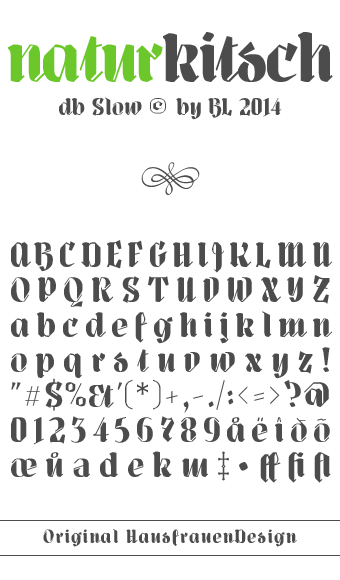
db Slow
by beate
Love it. Very creative use of ink traps. A bit of a speciality of yours. 10/10
Admit it. You have the most fffking awesome fontstructions so far.
Amazing work!
Another stunning work. :)
I'm with the guys! Excellent work!
(Speechless)
Beautiful! - or should that read beateful!
Awesome, as always. Your recent sample reveals the V to be very D-like – humorously suggesting your cheeky request be read as “PLEASE DOTE”. ;)
Interesting concept, it's very satisfying.
Love it. Just plain pretty.
Unusual and very effective inktraps, absolutely beautiful!
This is AMAZING. I love the flow between the letters!
who won scriptcomp? (no dis to the winner) anyway... this is truly outstanding and gives me that tingly feeling inside that certain fonts give me.
Merlin's beard, what a delight! Your design is as delicious as a fruitcake freshly out of the oven (nach Hausrezept). It is full of zest, there are so many clever solutions, your hallmarks are all over it. The x is very similar to א (aleph). It would serve as a good starting point, should you decide to make a Hebrew character set in the future.
Yes, db Slow could have been a winner at last year's Connected Script competition (with some modifications, of course), as funk_king suggested above. I dare say, this is one of the best typeface we've seen here at Fontstruct, ever. 10/10
awesome !!
I lost my eyeballs...They always pop out when I spot a font as pretty as this.
Wow! Beautiful ampersand.
I think it got even prettier? More elegant! Great work.
this is nice Font This is pro Font
coool
This is probably the first time I see an eszett like THIS. Awesome.
FANTASTIC 10/10
I don't know but I miss this one when it came out
WOW I aboslutely love it
I can fell a calligraphic pen in it... This B is realy awesome
Every time I come back to this, I think, "My word! This is insane!"
That B, that Z, that k, r, s, x, 3.... How do you come up with such things?!?
When I look at your fonts, I always feel awe, and a part of me thinks, I can do something similar, while the more sane part of me feels, there's no way I can ever do anything remotely as nice. You are amazing.
Impressive!